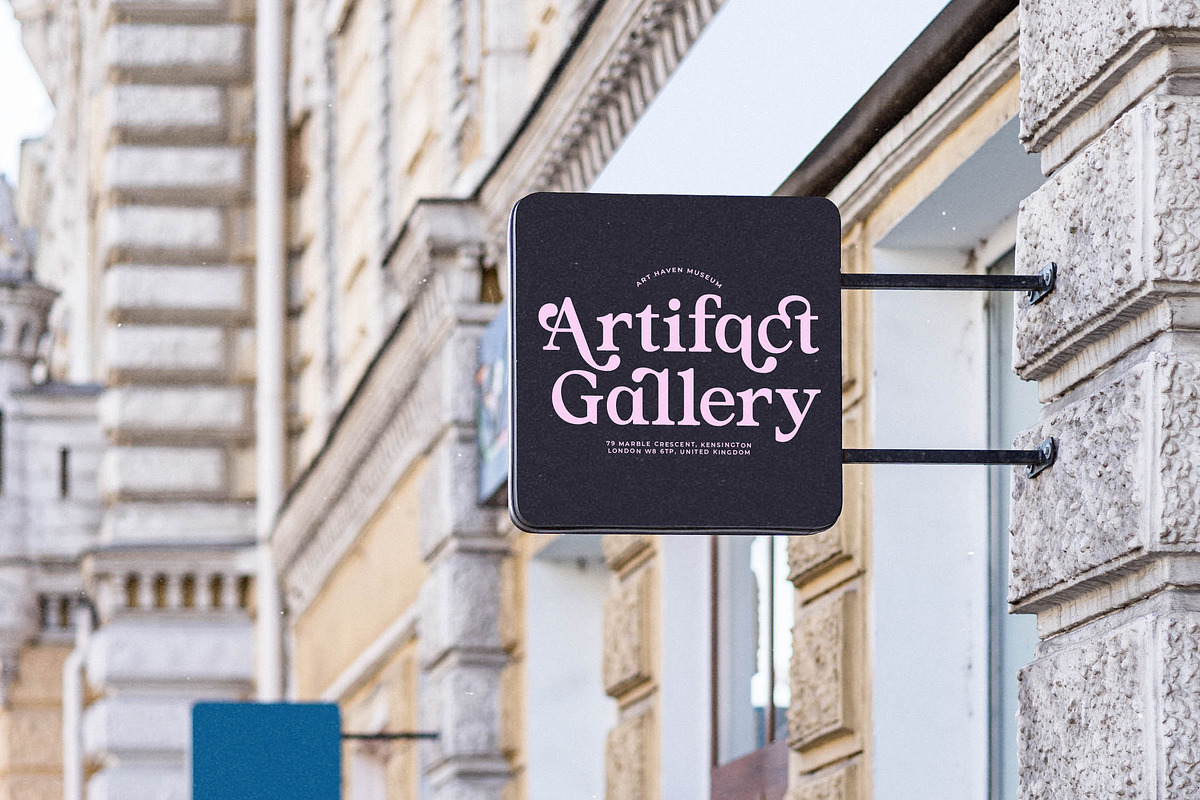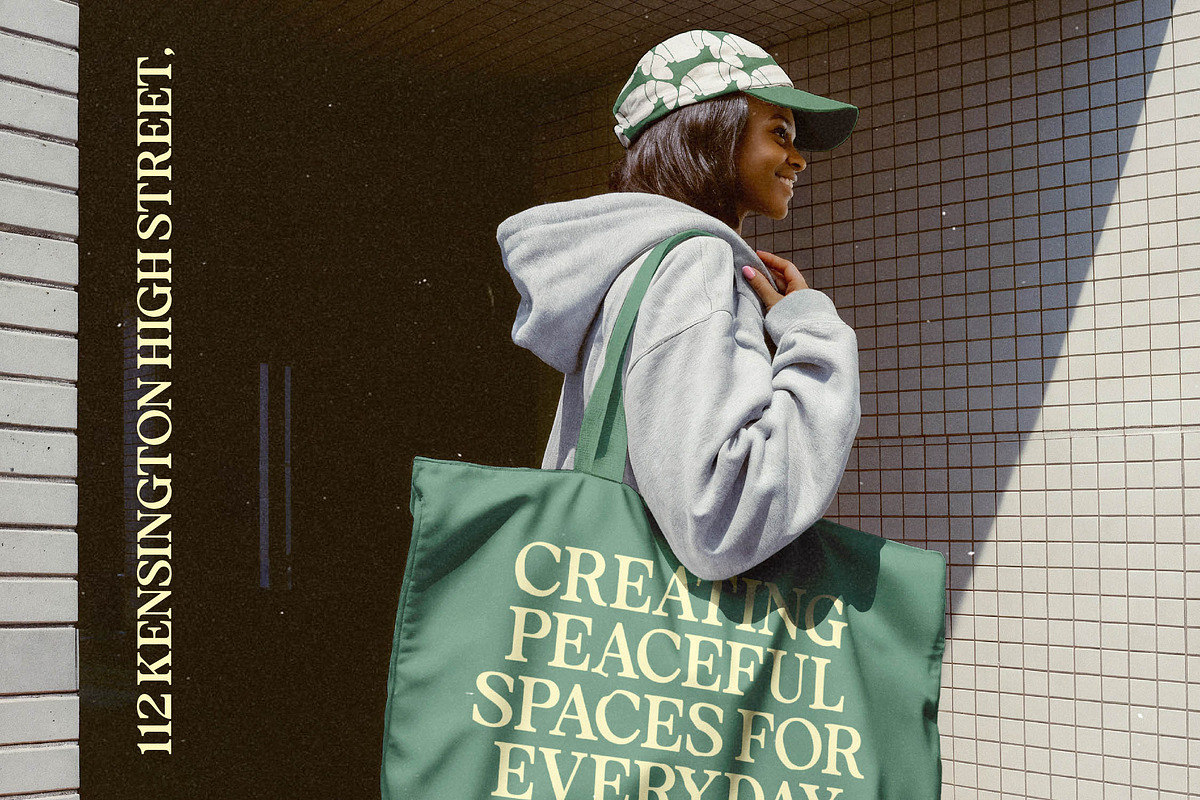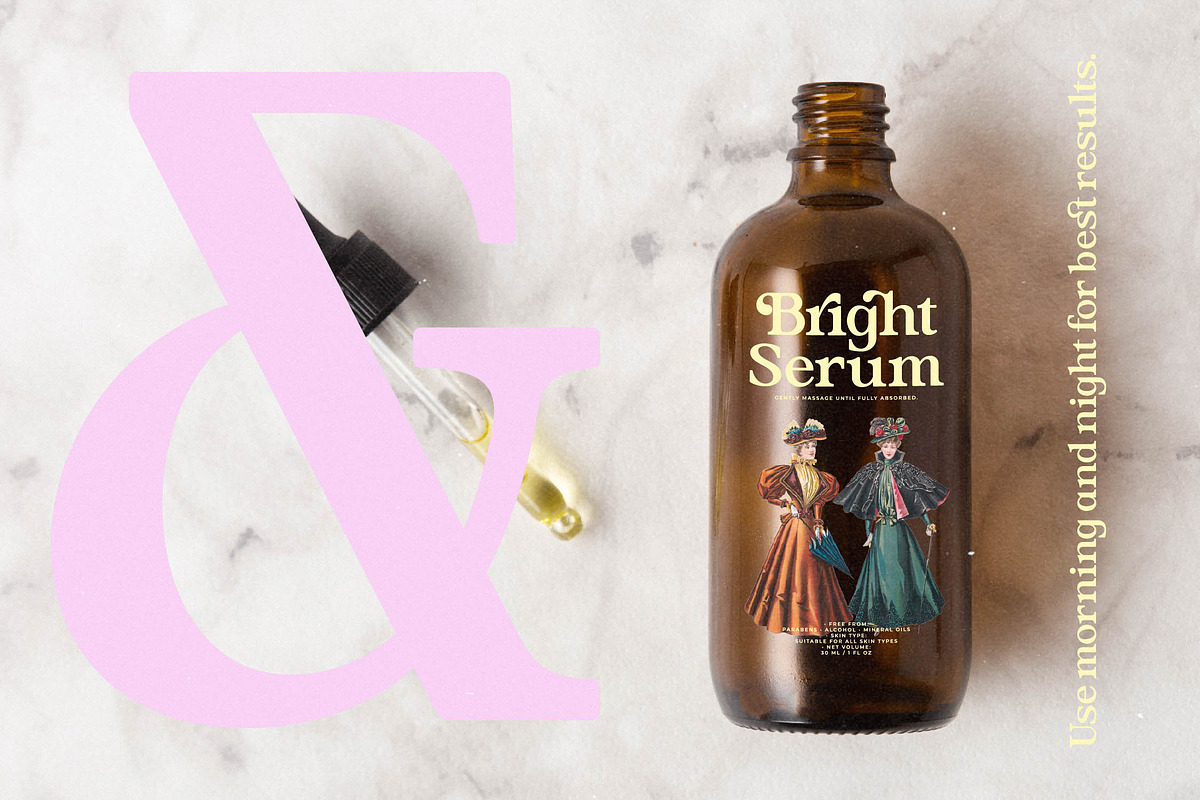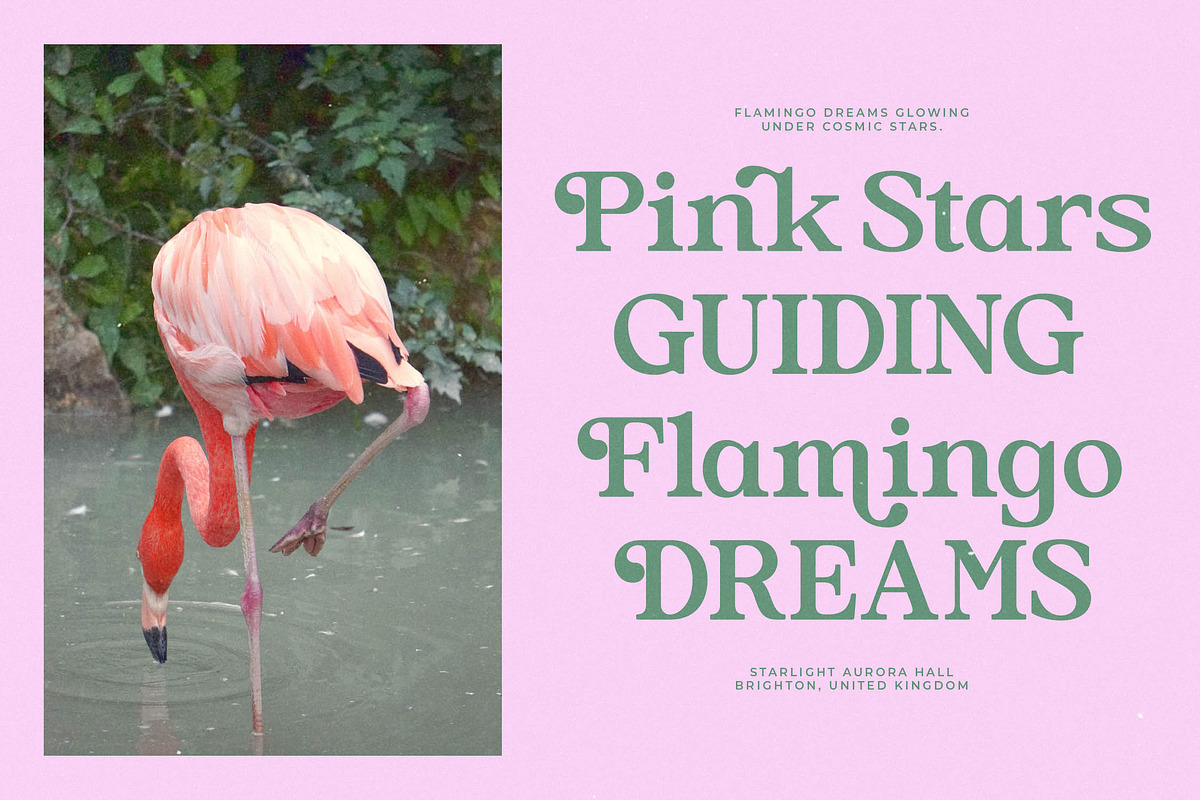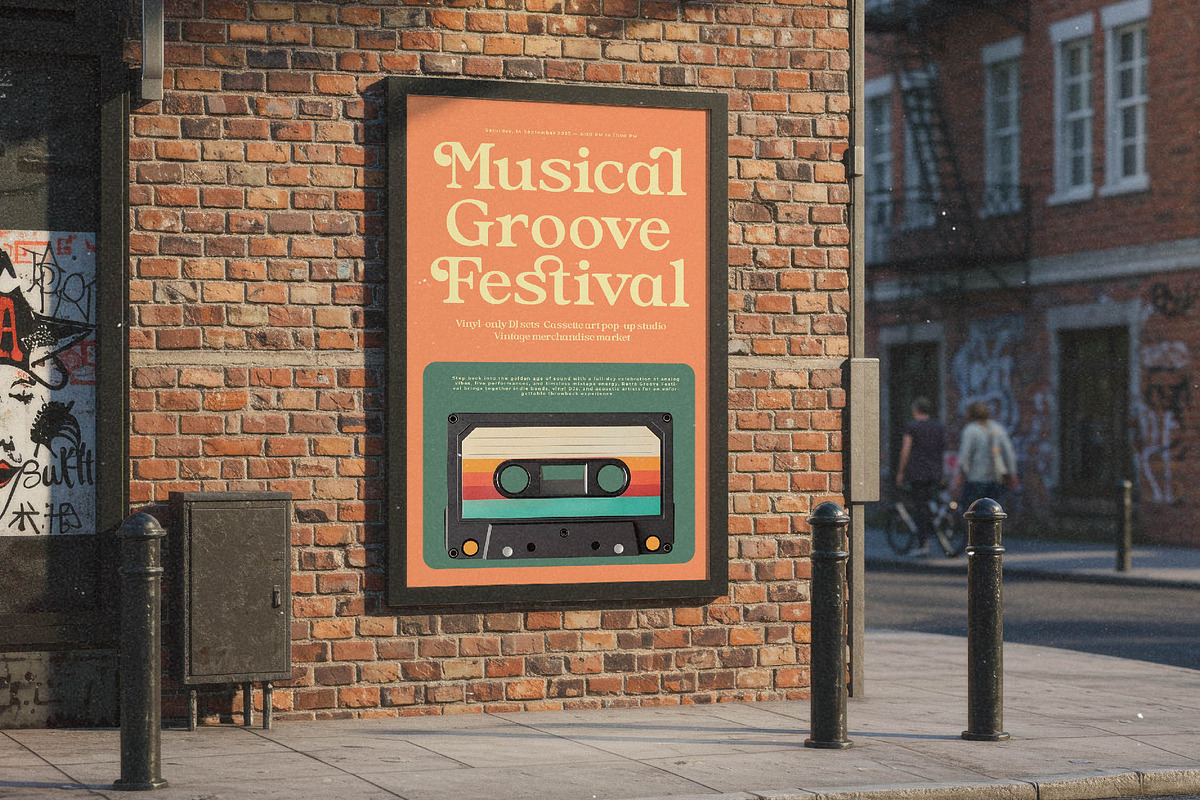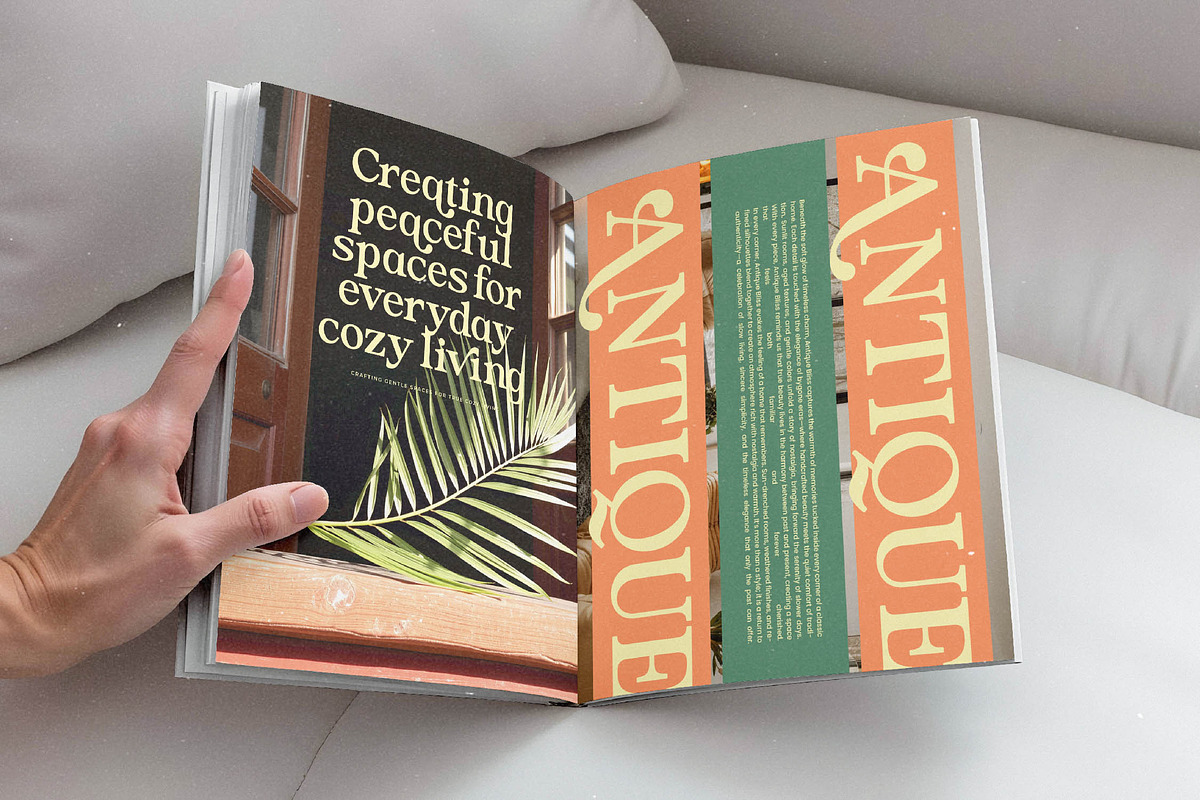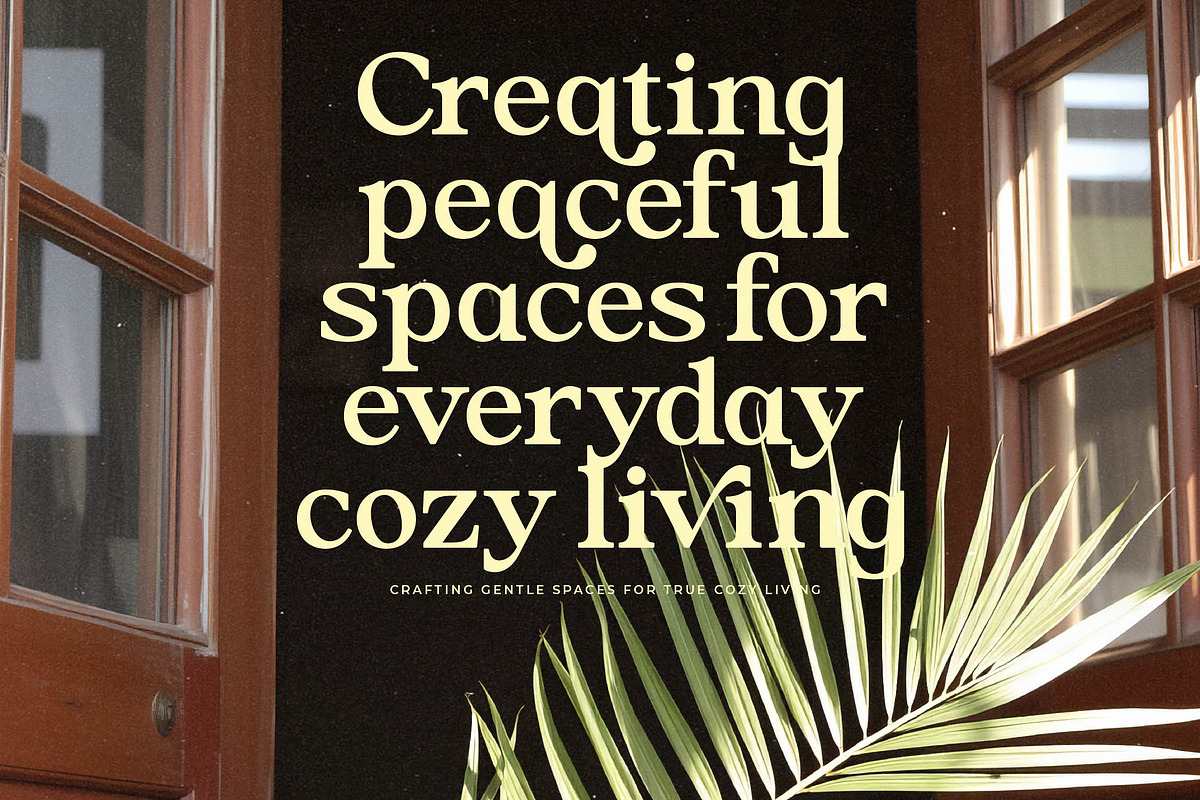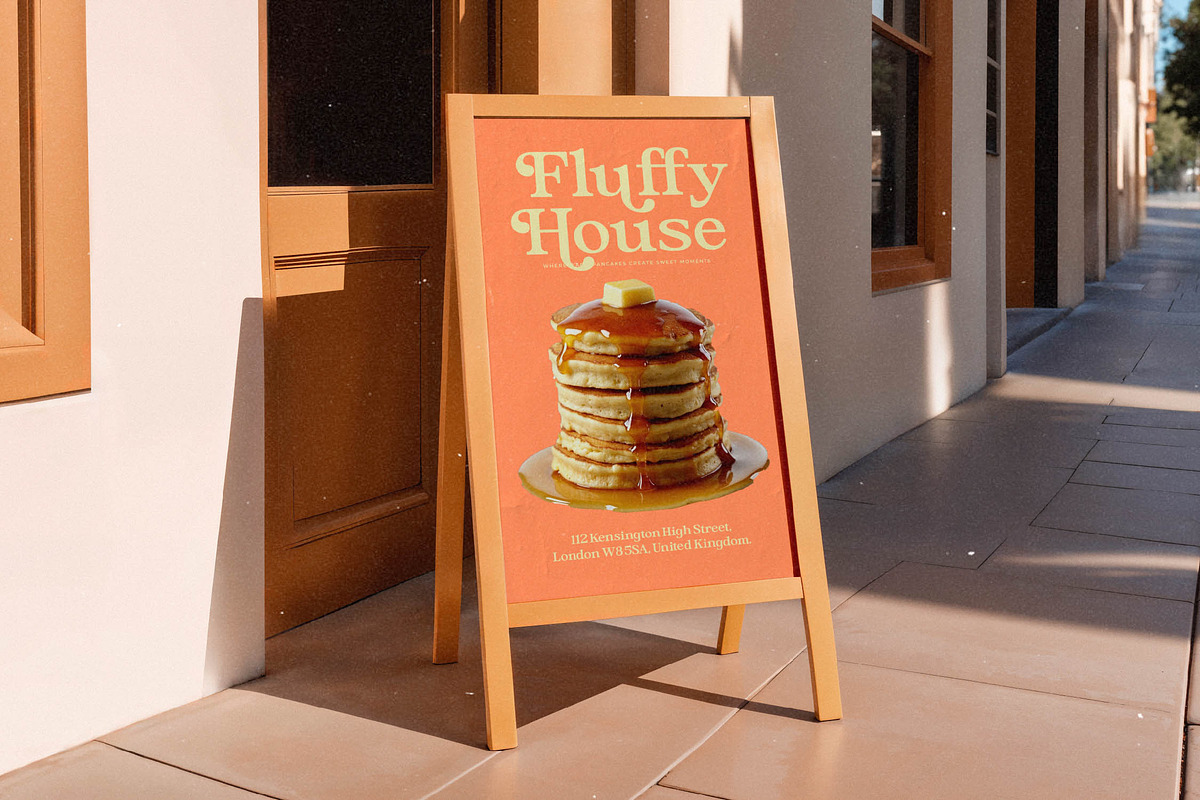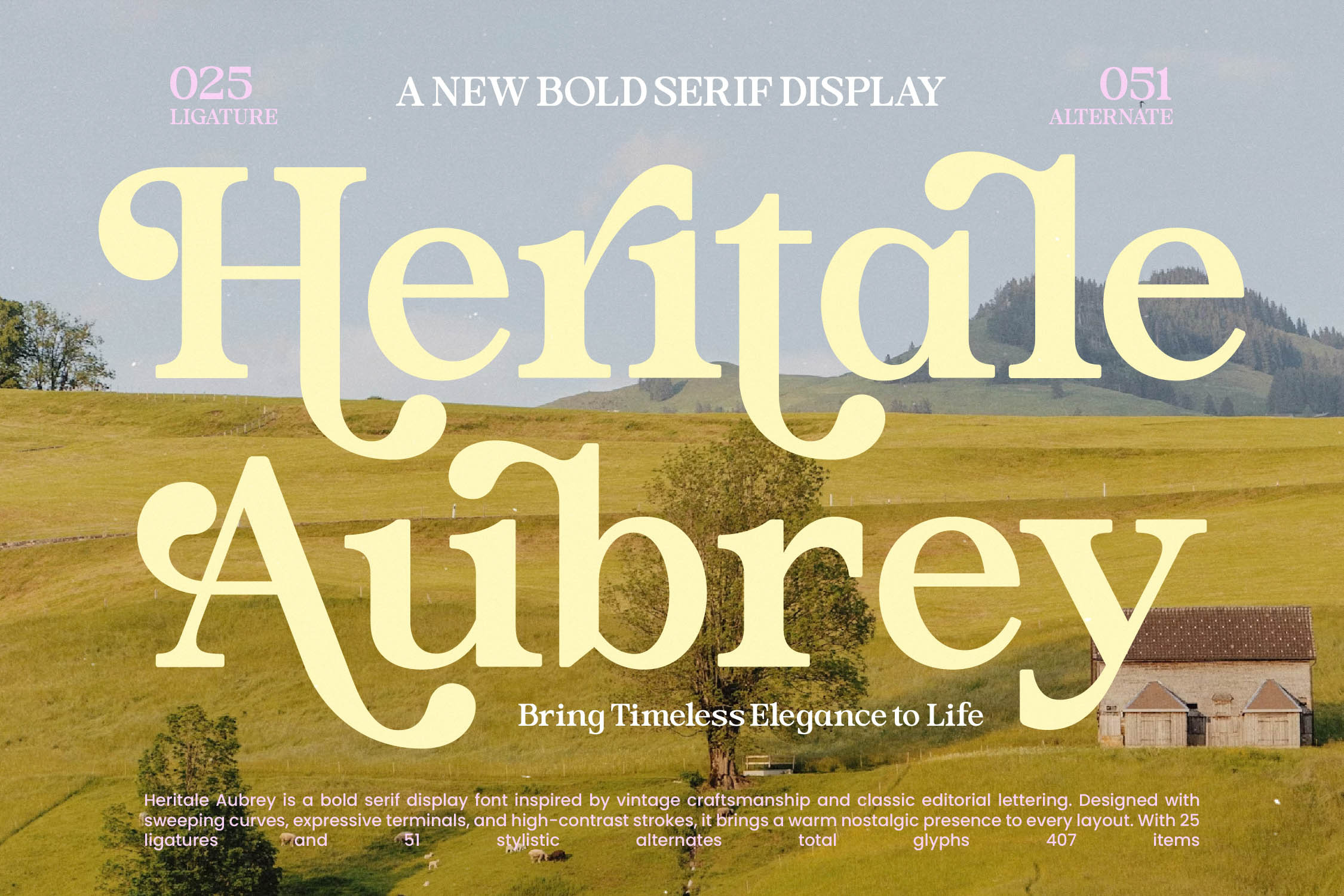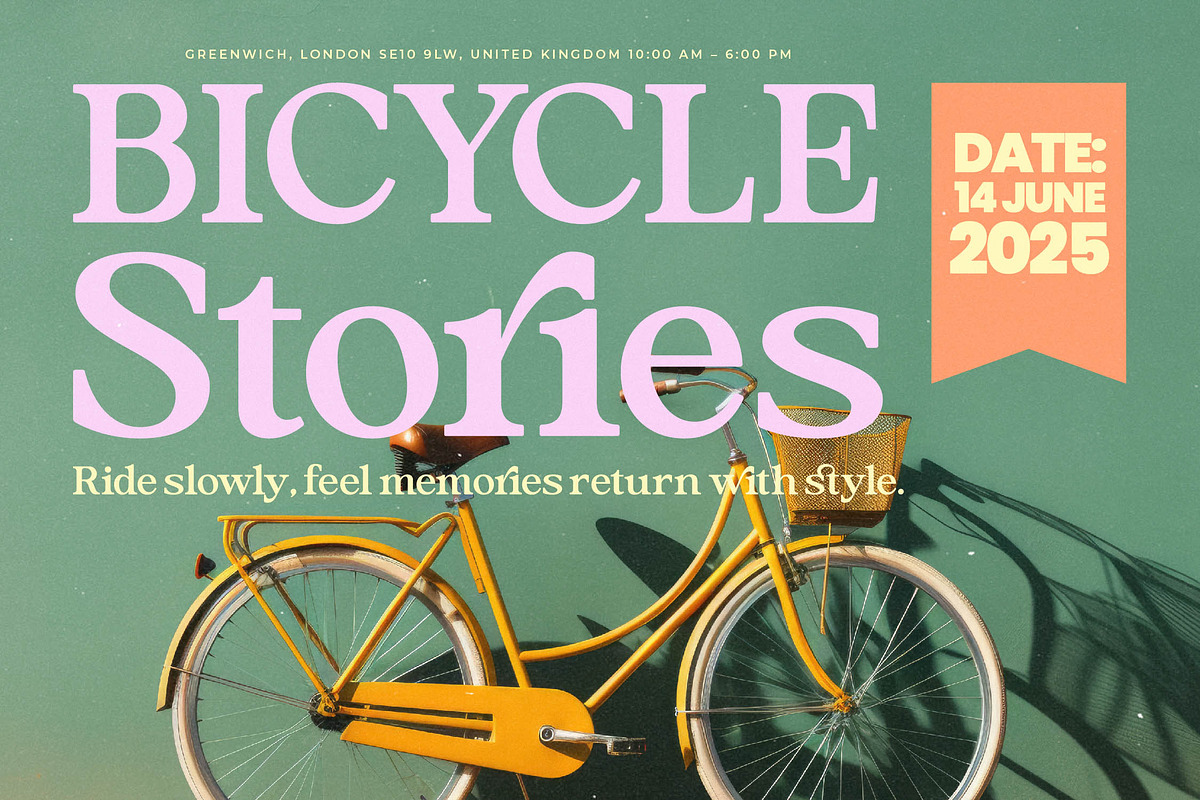
Heritale Aubrey Bold Serif Font
Embrace the soulful allure of Heritale Aubrey, a typeface that captures the essence of sophisticated grace through its fluid forms and rhythmic structure. This font is more than just a set of characters; it is an invitation to create designs that resonate with a timeless, high-end spirit and command attention.
Taking its visual cues from the refined craftsmanship of mid-century editorial work and rustic pastoral landscapes, this font evokes a sense of quiet luxury. It tells a story of heritage and handcrafted beauty, where every curve is meticulously balanced to provide a warm, nostalgic atmosphere in every layout.
As a modern serif display, this typeface is the perfect choice for projects demanding luxury typography with a distinct point of view. Its high-contrast serif design creates an immediate editorial font appeal, ensuring your message carries a significant branding impact across digital and print mediums.
Perfectly aligned with the latest modern serif trend, it offers designers a fresh take on editorial display fonts that feel both classic and contemporary. It is the definition of character-driven typography, providing a unique visual voice that stands out for its elegance and distinctive sweeping terminals.
This versatile asset is ideal for sophisticated logo design and holistic branding identity systems across various boutique industries. From prestige editorial layouts and luxury packaging to romantic wedding stationery and high-end fashion lookbooks, it brings an air of effortless chic to any canvas.
The font comes packed with professional features including 25 unique ligatures and 51 creative alternates for bespoke typesetting. It offers extensive multilingual support and a full set of international characters, alongside beautiful swashes that add a finishing touch of handcrafted excellence to your creative vision.
Numerals
Punctuations (OpenType Standard)
Accents (Multilingual Characters)
Ligatures and Alternative Style Stylistic Set